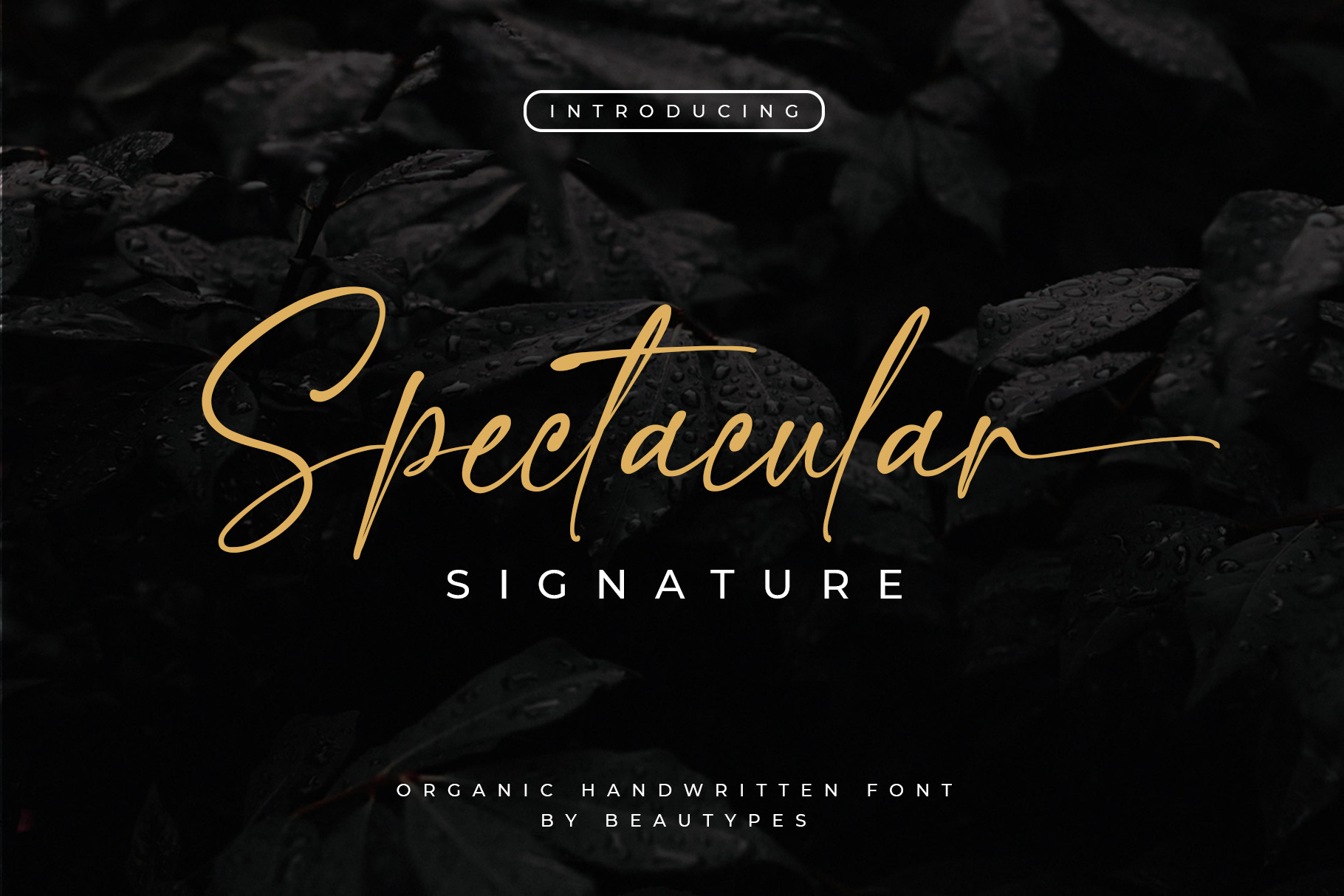
Spectacular Signature Font
Spectacular Signature is an organic handwritten font that is suitable for branding, signature, wedding invitation, promotion, product packaging, and other needs.